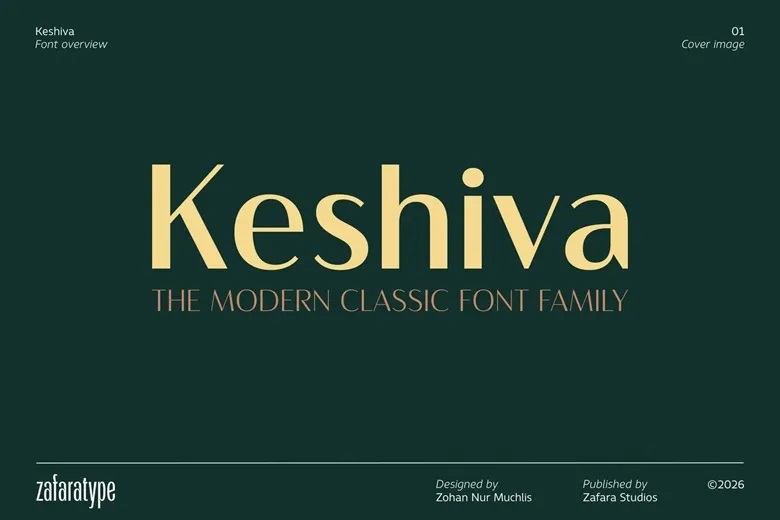
Keshiva Font
Keshiva is a modern sans-serif font family. Its refined, luxury-inspired style makes it a great choice for contemporary branding and editorial projects. The clean geometric shapes, balanced proportions, and touches of classic design give Keshiva a polished, timeless, and versatile look. Keshiva’s balanced design gives it a strong but elegant look.
It fits easily into fashion, beauty, editorial layouts, packaging, and logos. Its clear letterforms make it work well in both large displays and more structured layouts. Keshiva stays visually consistent while adapting to different creative needs.
The Keshiva family comes in 18 styles, with 9 upright and 9 oblique weights from Thin to Black. This range gives you plenty of options for building clear typographic hierarchies. You can create simple layouts or bold designs, all within one unified system.
Keshiva Sans Serif Font